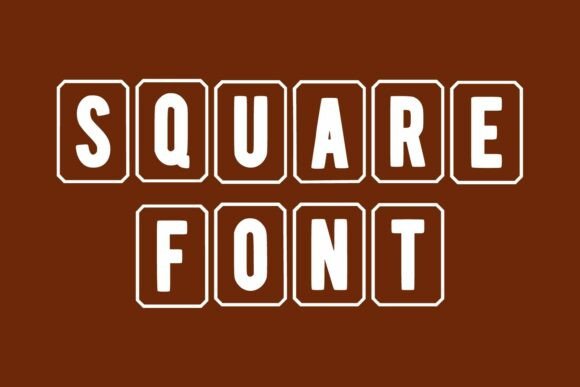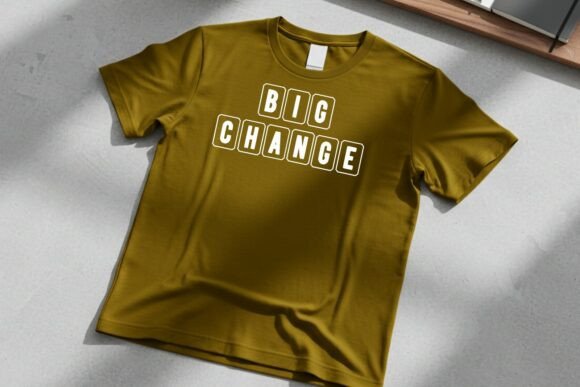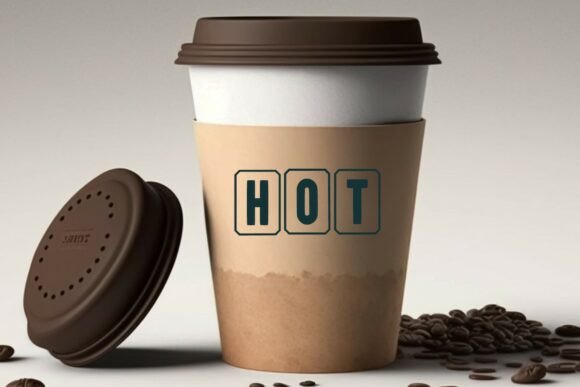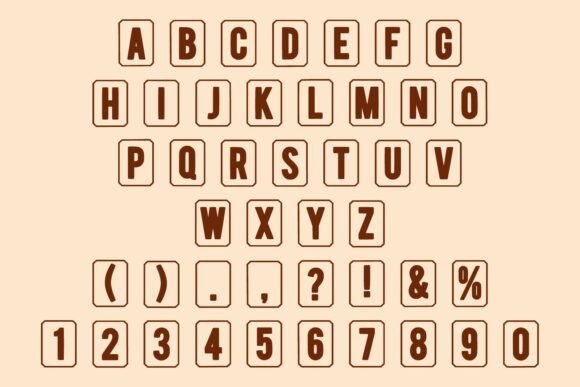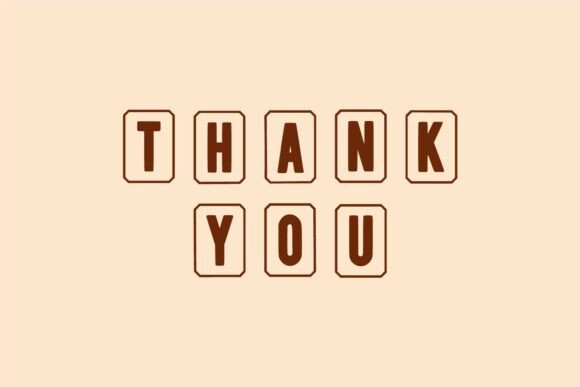
Introduction to Banner the Box Font Font
Fonts play a crucial role in design, and the Banner the Box Font font is a typeface that brings both character and versatility to any project. Whether you’re working on a branding project, a website, or a print design, the Banner the Box Font font offers a unique style that can elevate your work.
Banner The Box is a bold decorative display font featuring strong letterforms framed inside geometric badge-style boxes.
Designed for eye-catching headlines, logos, posters, packaging, and branding, this font delivers a vintage-retro aesthetic with a modern twist Perfect for signage, labels, and standout typography, Banner The Box adds structure, personality, and visual impact to any creative design.
Key Features of Banner the Box Font Font
Why Choose Banner the Box Font Font?
The Banner the Box Font font is more than just a typeface – it’s a design tool that helps you communicate your message with style and clarity. Its unique character set and versatile design make it suitable for a wide range of applications, from elegant invitations to bold headlines.
With its carefully crafted letterforms and balanced proportions, the Banner the Box Font font ensures readability and visual appeal across all mediums.
What makes Banner the Box Font font special?
The Banner the Box Font font stands out with its unique design, exceptional readability, and versatility across various design applications.